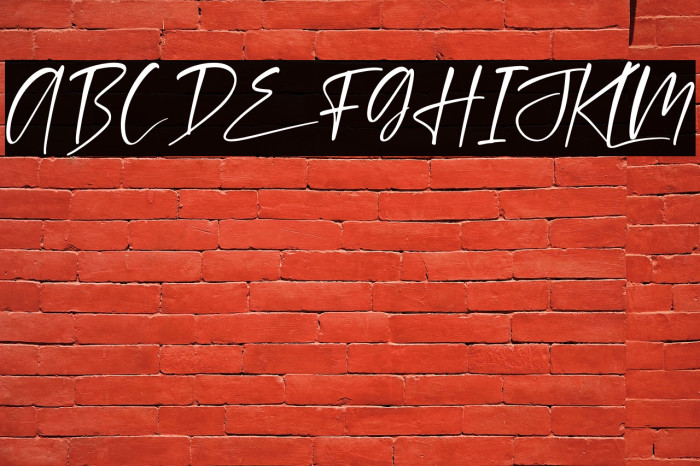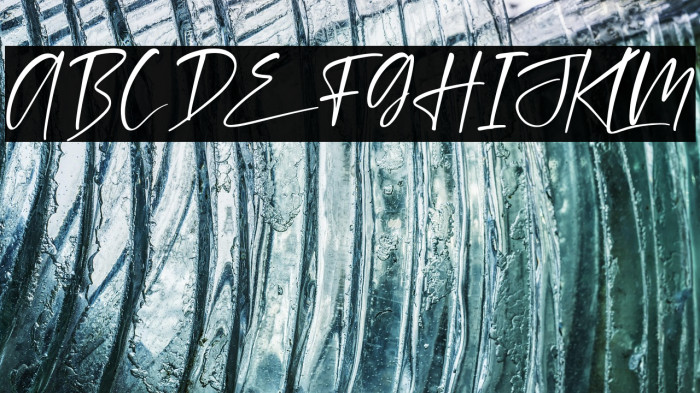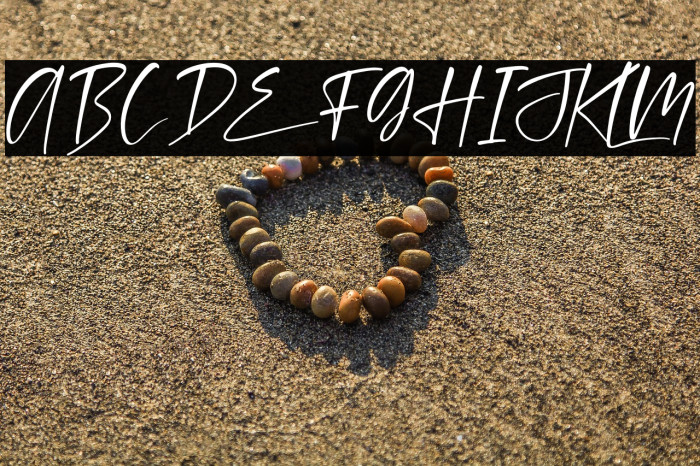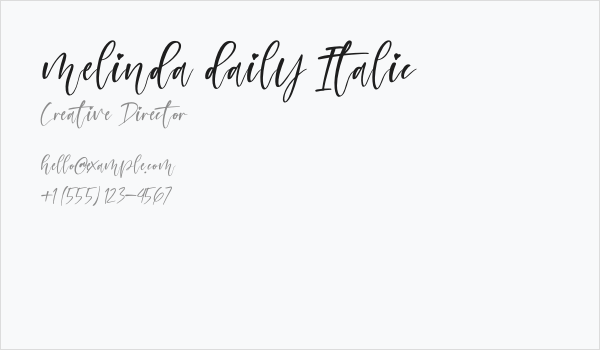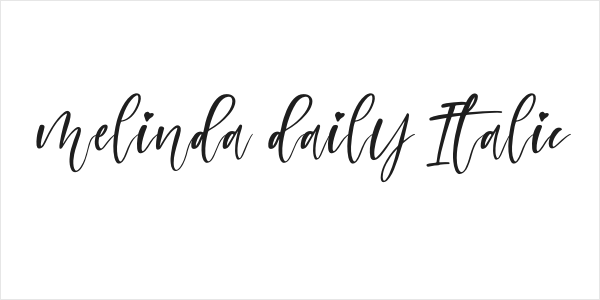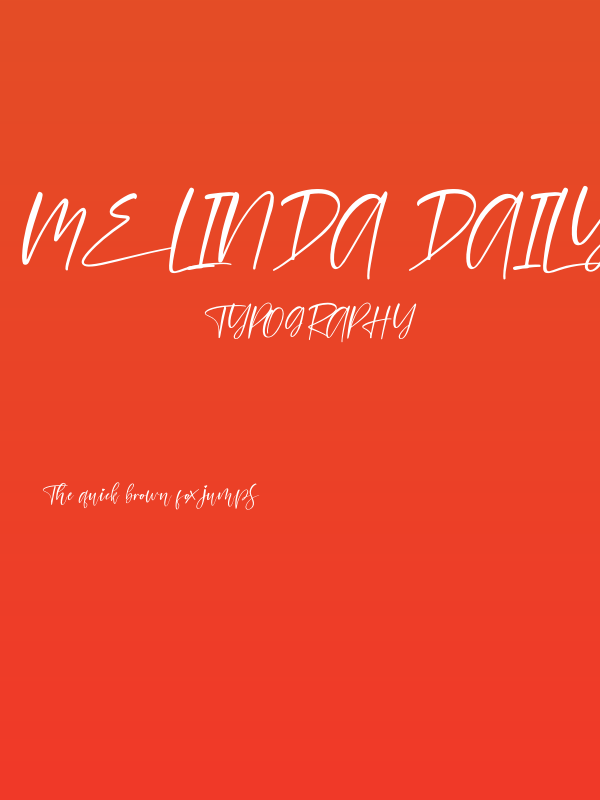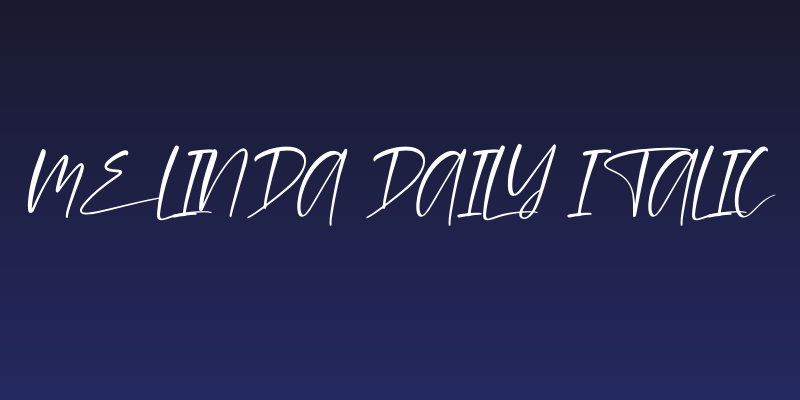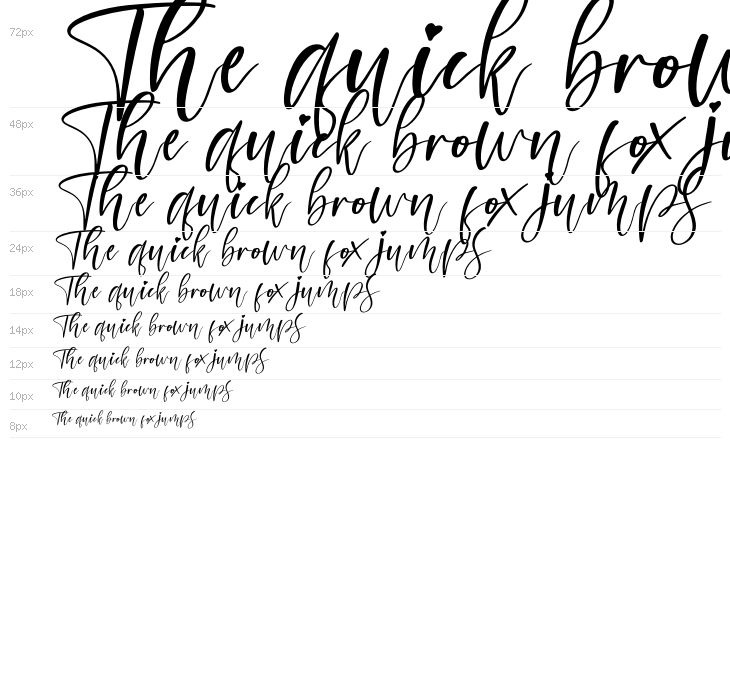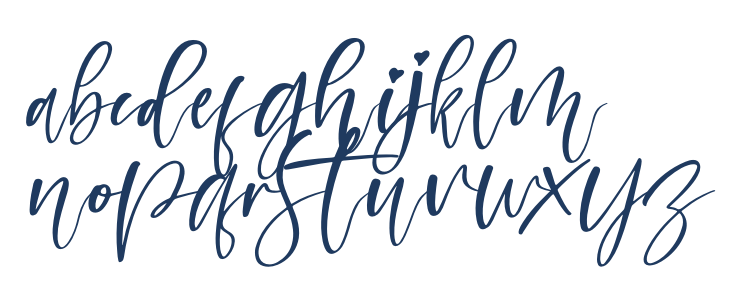
melinda daily Italic Font
melinda daily Italic Description
This font features a lively and dynamic handwritten style, characterized by its fluid and cursive strokes. The letters are elegantly connected, creating a sense of movement and flow. The uppercase letters exhibit a playful yet sophisticated flair, while the lowercase letters maintain a consistent rhythm, enhancing readability. Numbers and special characters are crafted with the same attention to detail, ensuring a cohesive look across all elements. The font's overall aesthetic is both modern and artistic, making it suitable for a variety of creative applications.
Overall StyleModern, Artistic
Use CaseLogos, Invitations, Social Media
Proposed ProjectsIdeal for wedding invitations, greeting cards, branding projects, and social media graphics.